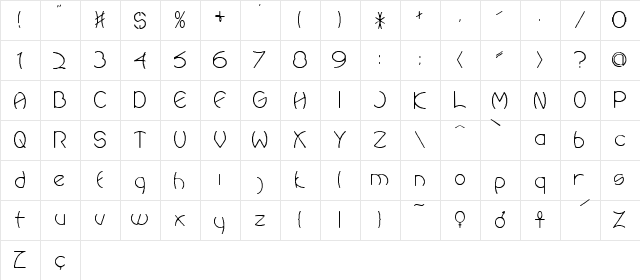
Ovial Regular
Design Context for Ovial Typeface
Ovial takes a measured approach to typography — its balanced proportions and neutral character make it a reliable workhorse for both digital and print work.